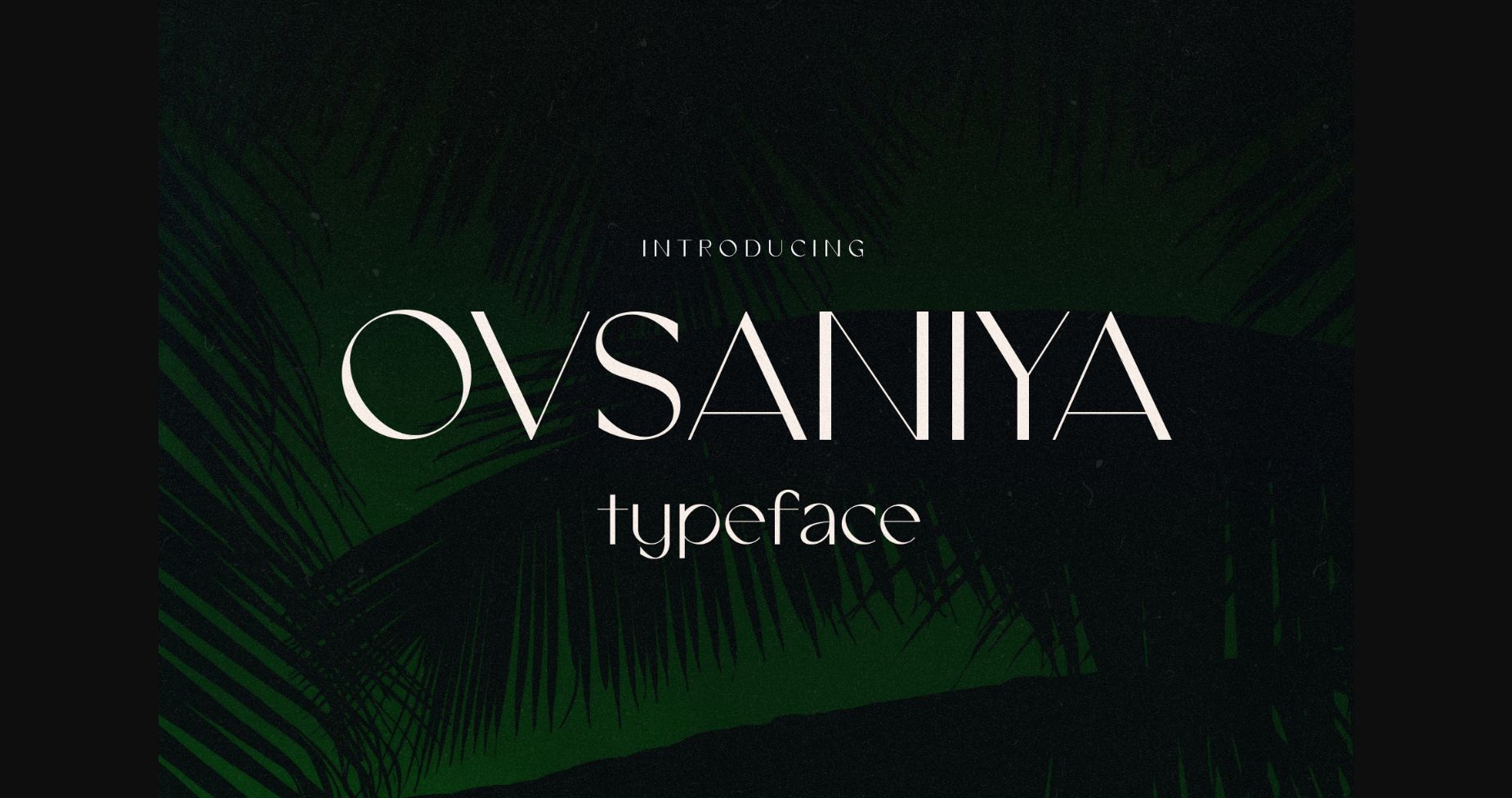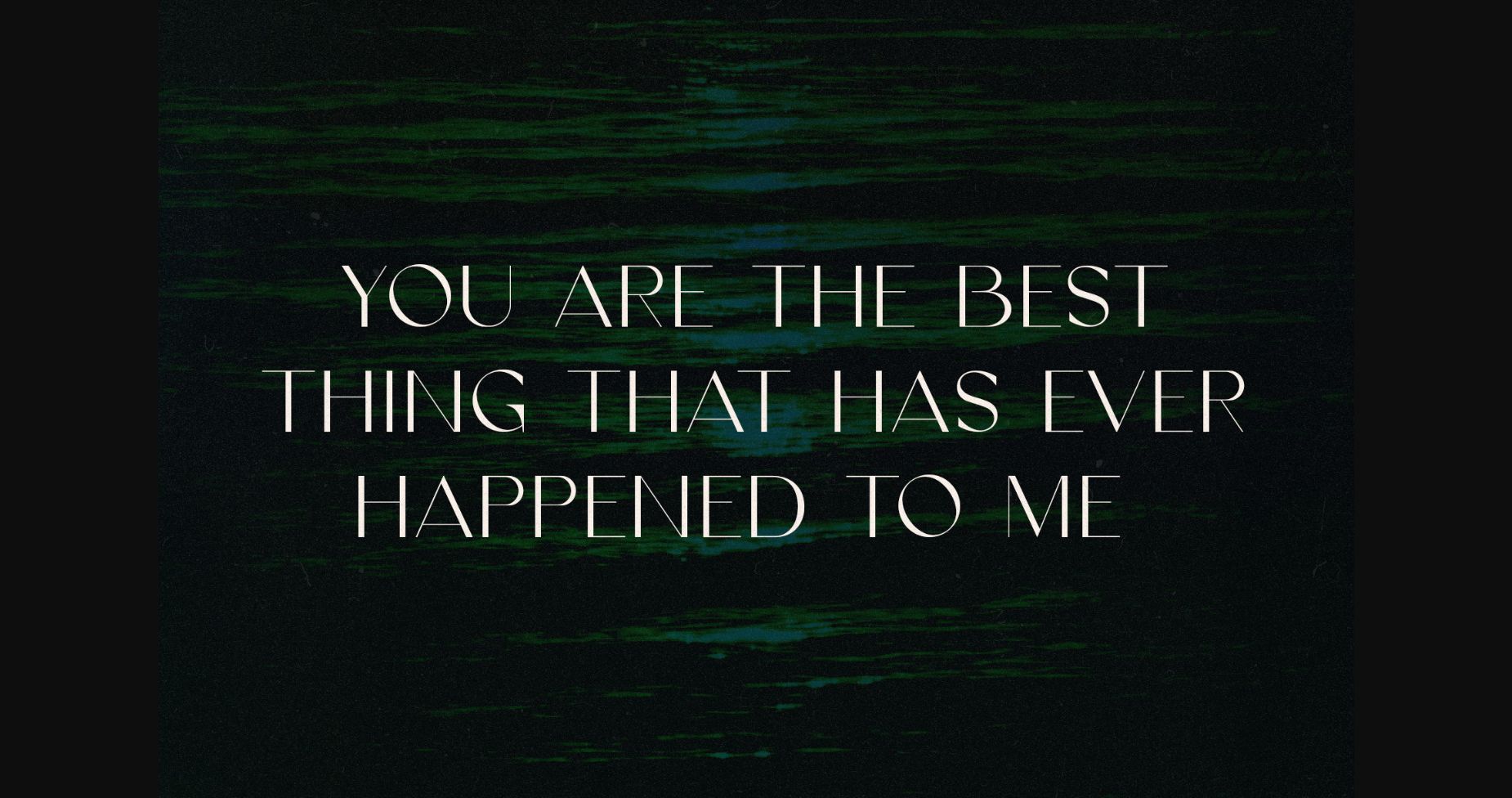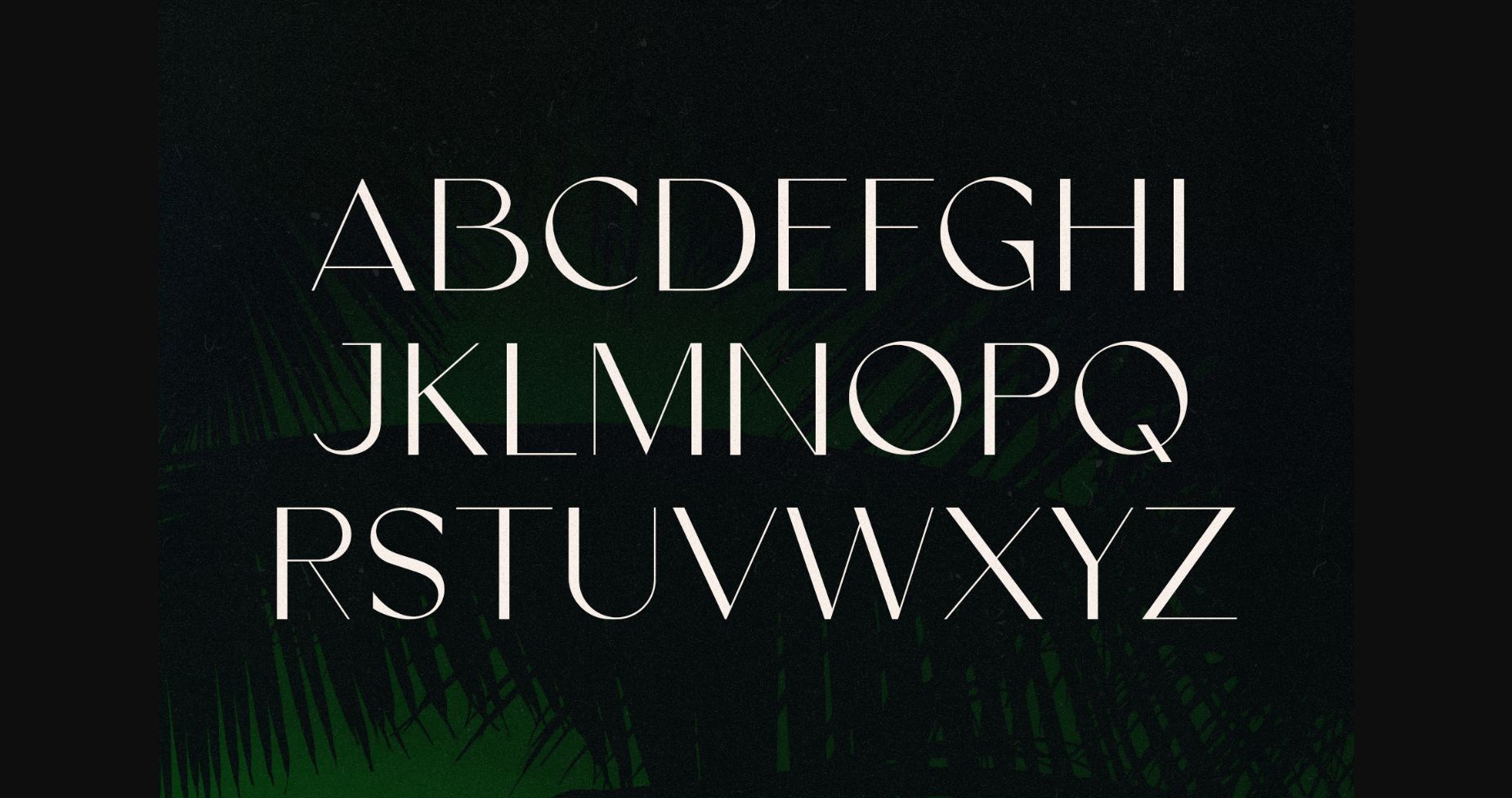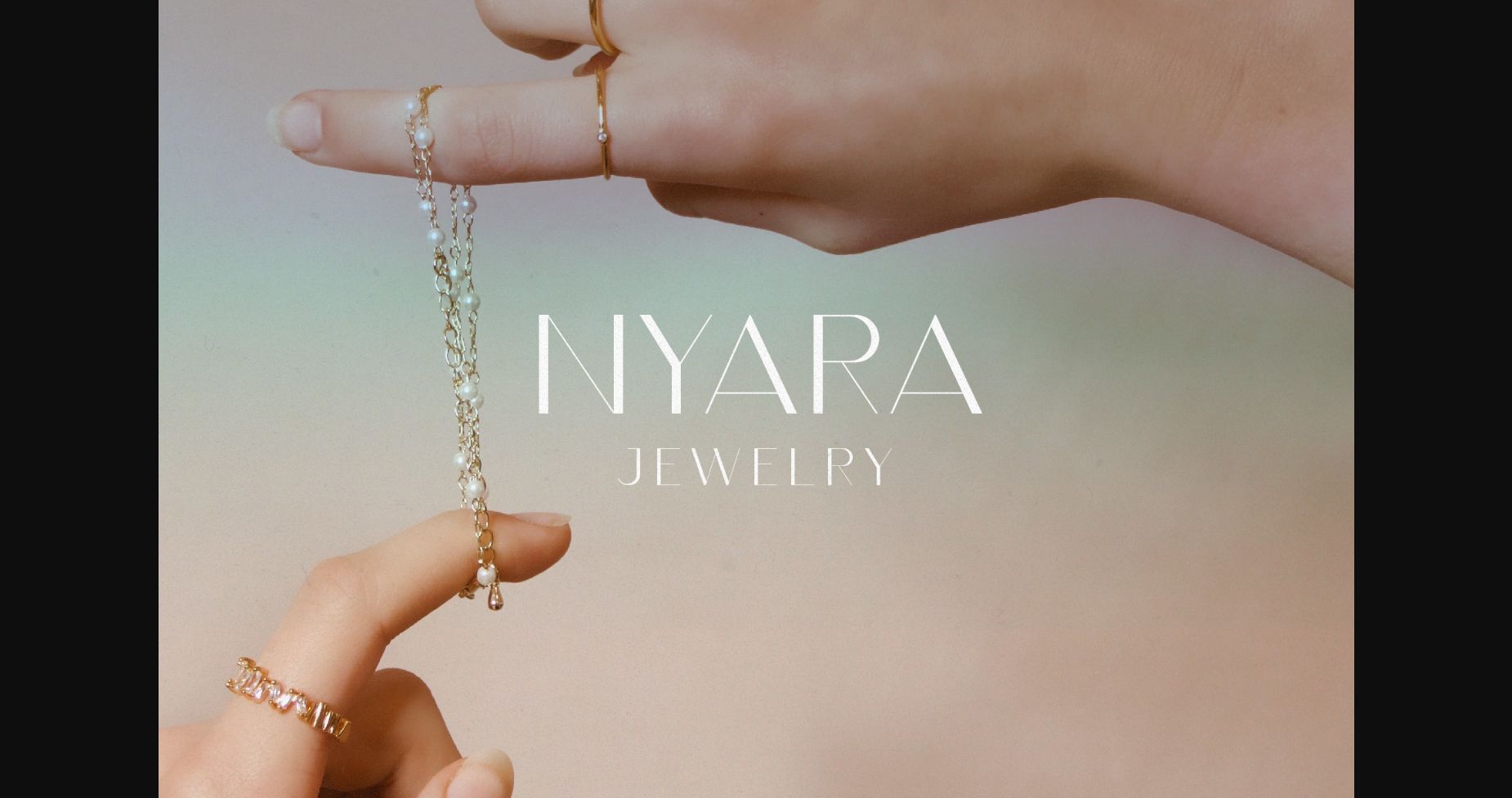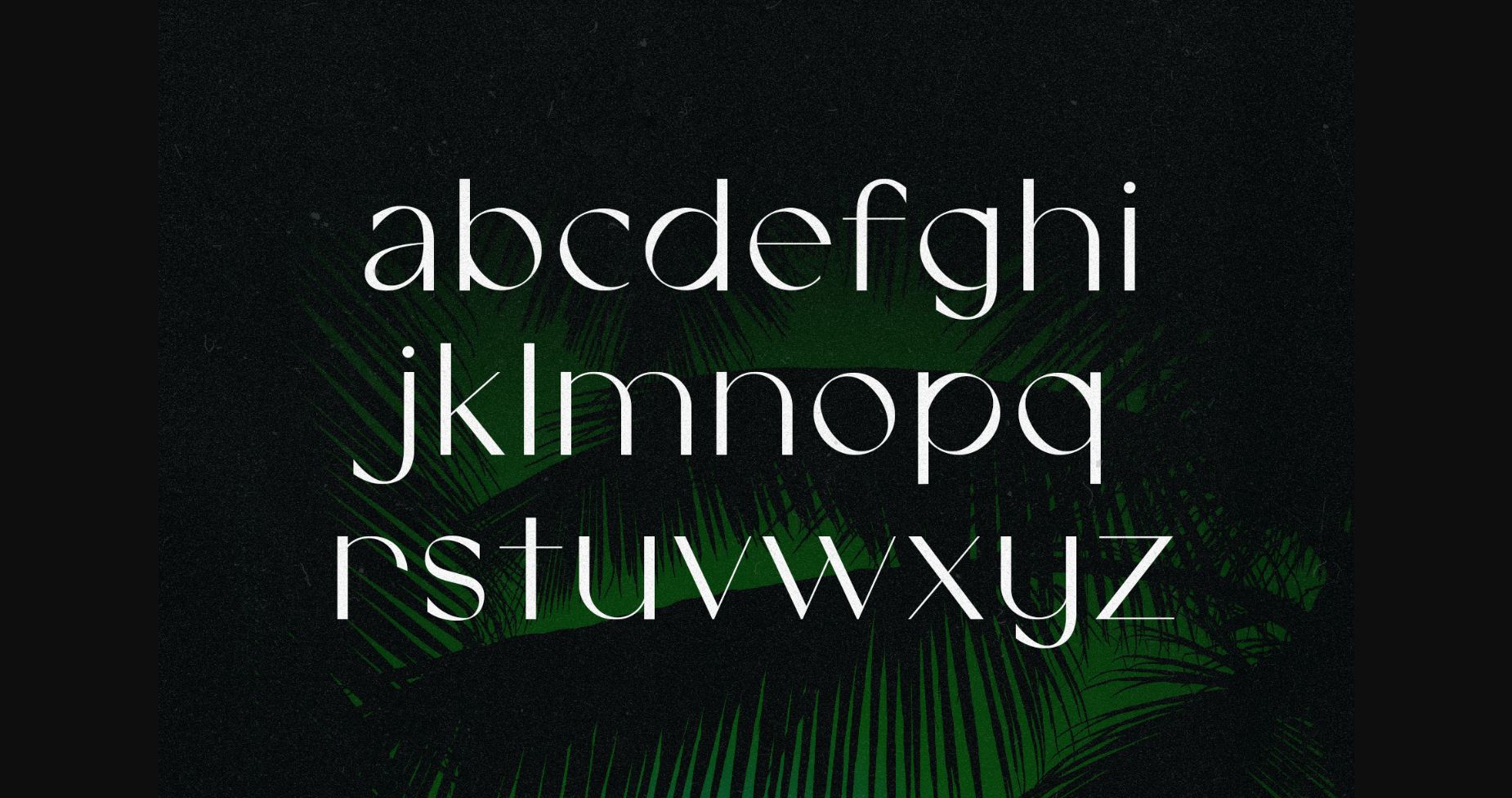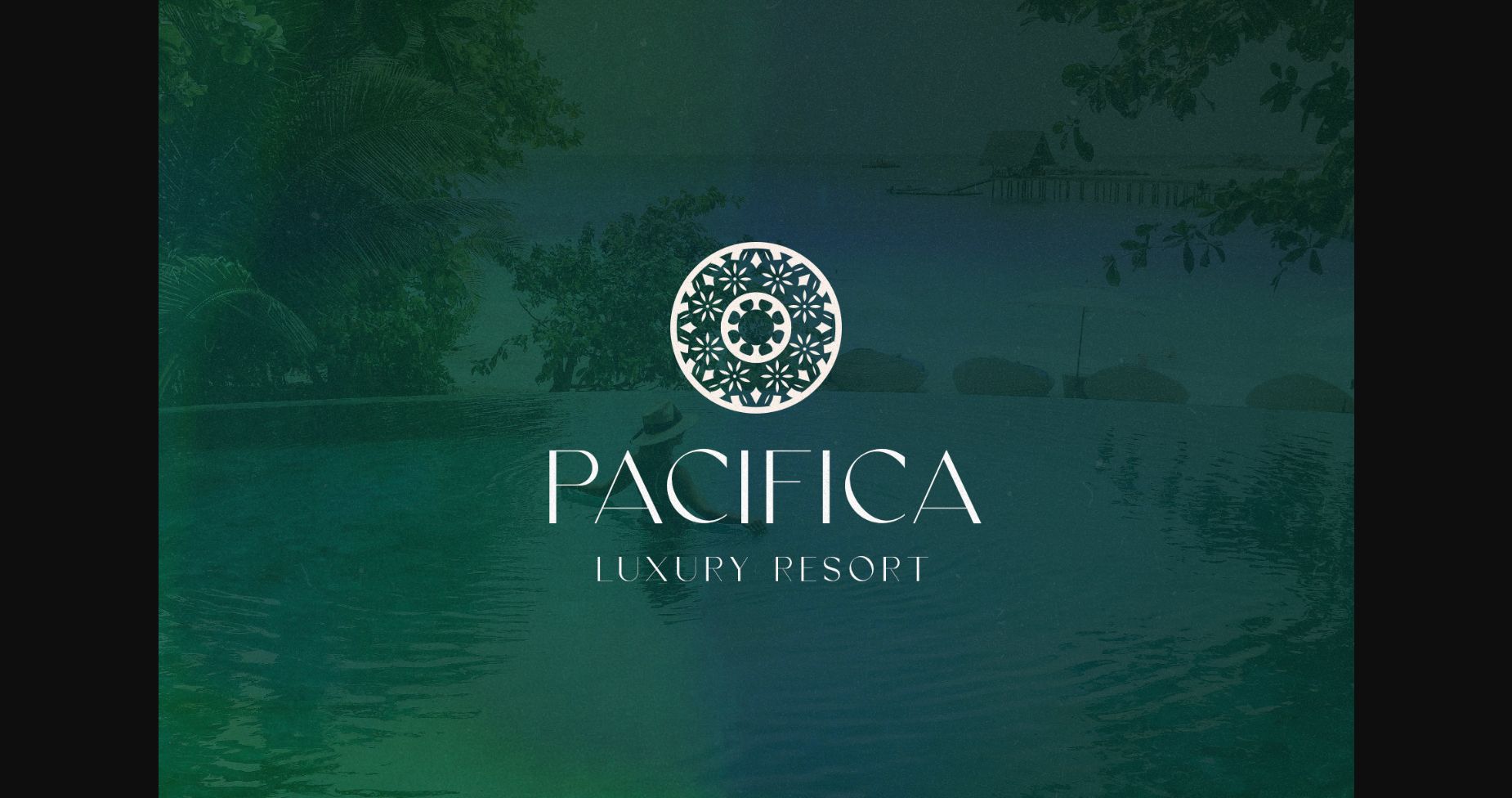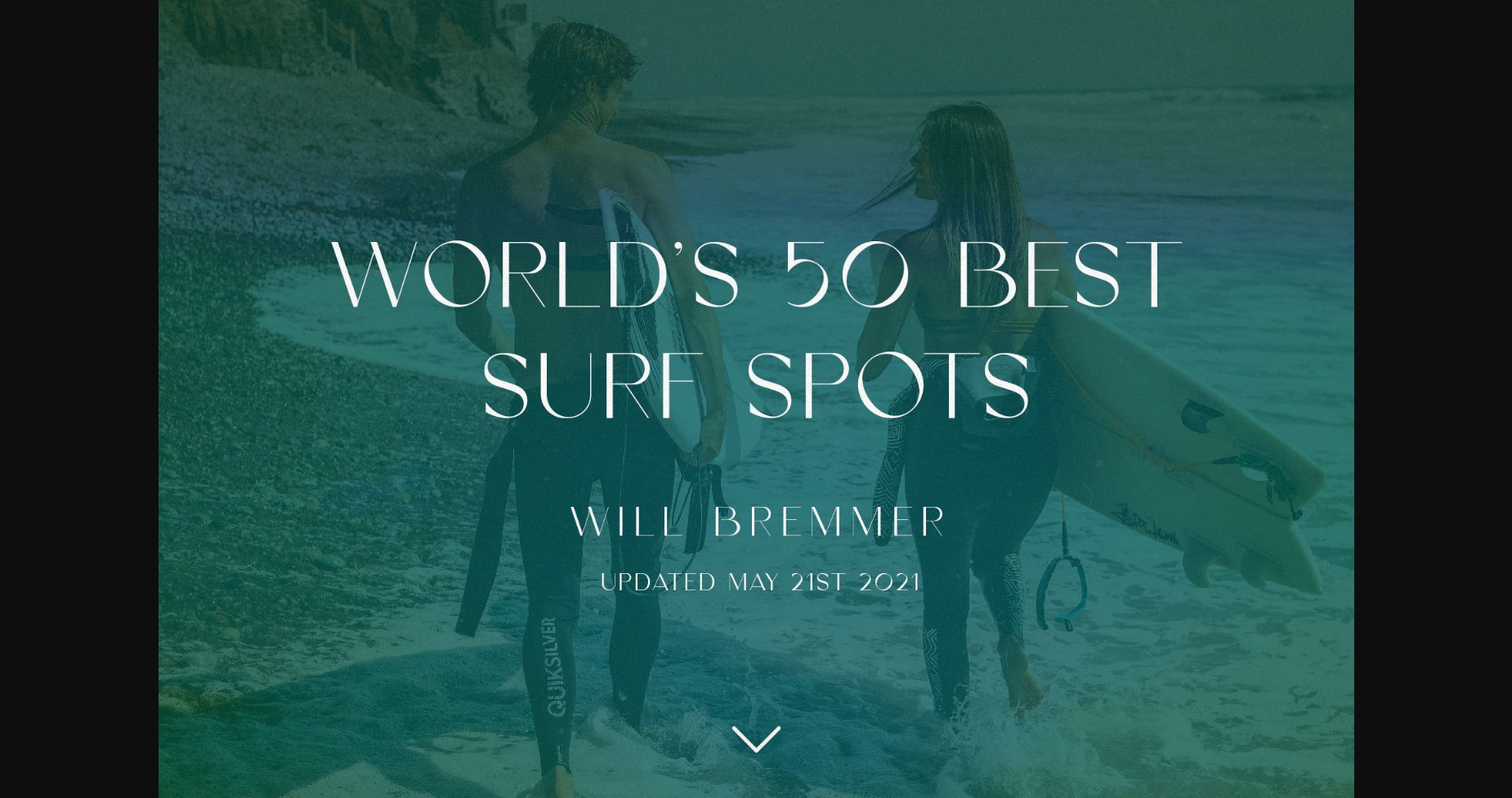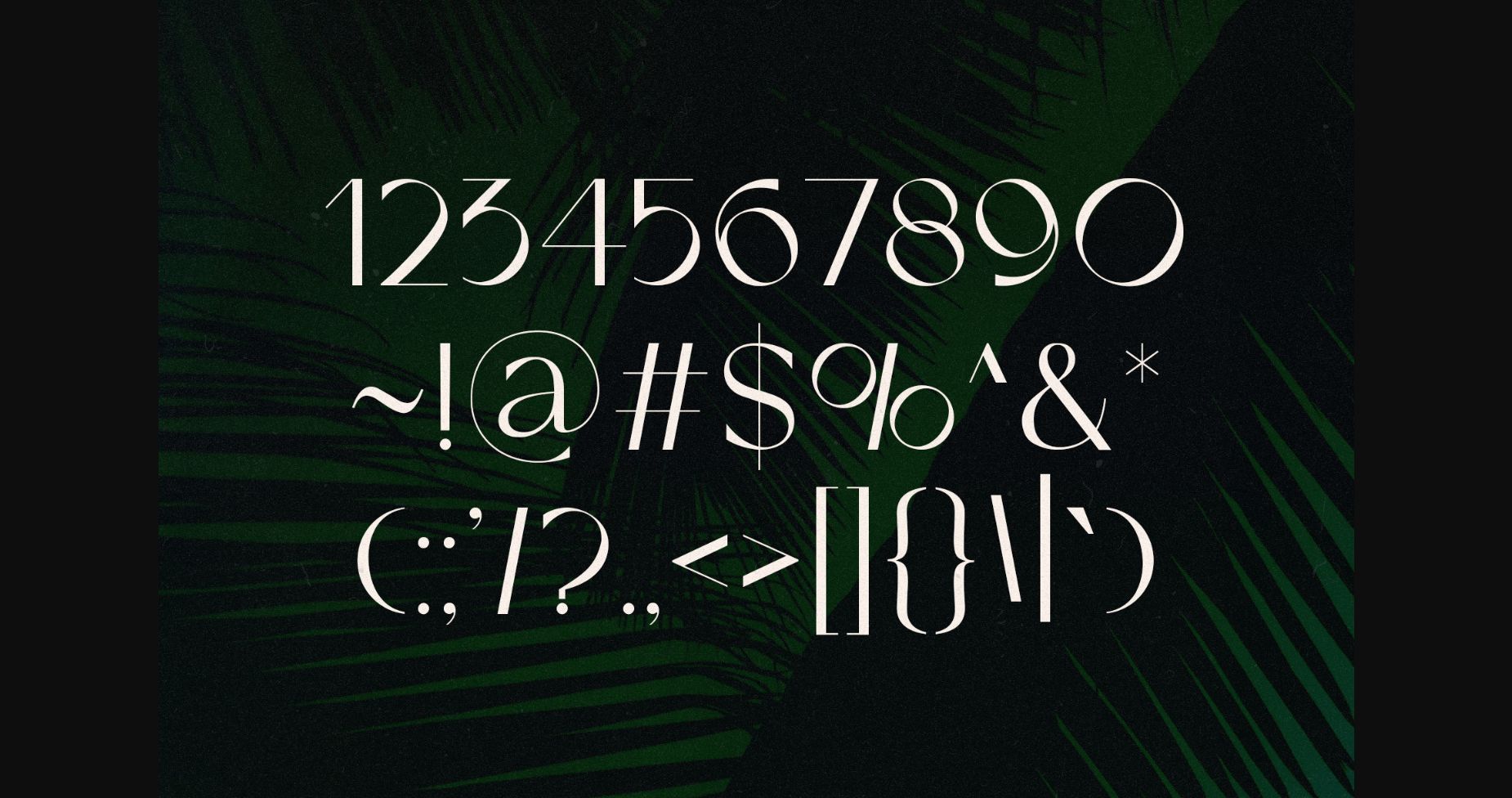
HomeSans Serif FontsOvsaniya Font Sans Serif Fonts Ovsaniya Font FacebookXPinterestWhatsApp 1 of 10 ... Ovsaniya Font Poster 2... Ovsaniya Font Poster 3... Ovsaniya Font Poster 4... Ovsaniya Font Poster 5... Ovsaniya Font Poster 6... Ovsaniya Font Poster 7... Ovsaniya Font Poster 8... Ovsaniya Font Poster 9... Ovsaniya Font Poster 10... About Ovsaniya Font Ovsaniya is a timeless sans serif font, perfect for branding, advertising, packaging, headlines, wedding invitations, and more. DOWNLOAD NOW People also explored Mailboxing Font Queen Xylophia Font Diary Journal Font Gealova Font Kayalla Font Atom Font Realistic Mock-ups on Vintage Background Fox Strong 4 Font Styles Font Frozenflare Font 366 0 TagsOvsaniya Font Previous articleMoonbeams FontNext articleBaleo Font LEAVE A REPLY Cancel reply Comment: Please enter your comment! Name:* Please enter your name here Email:* You have entered an incorrect email address! Please enter your email address here Website: Save my name, email, and website in this browser for the next time I comment. Personal Use Free Einstaint Personal Use Free Read more about this font Letter Hanger Personal Use Free Read more about this font Marthissa Personal Use Free Read more about this font Amillina Monogram Personal Use Free Read more about this font BLOG Elegant Wedding Invitation Fonts – Handwritten & Script Fonts Elegant Wedding Invitation Fonts Your wedding day is one of the most important moments of your life, and every detail matters—including your invitation design. Our... Best Fonts for YouTube Videos: Make Your Thumbnails Stand Out How to Cut Any Font on Cricut: Convert a Font to SVG (Free) Transform Your Website: Elevate Your Typography with 7 Best Web Font Generators